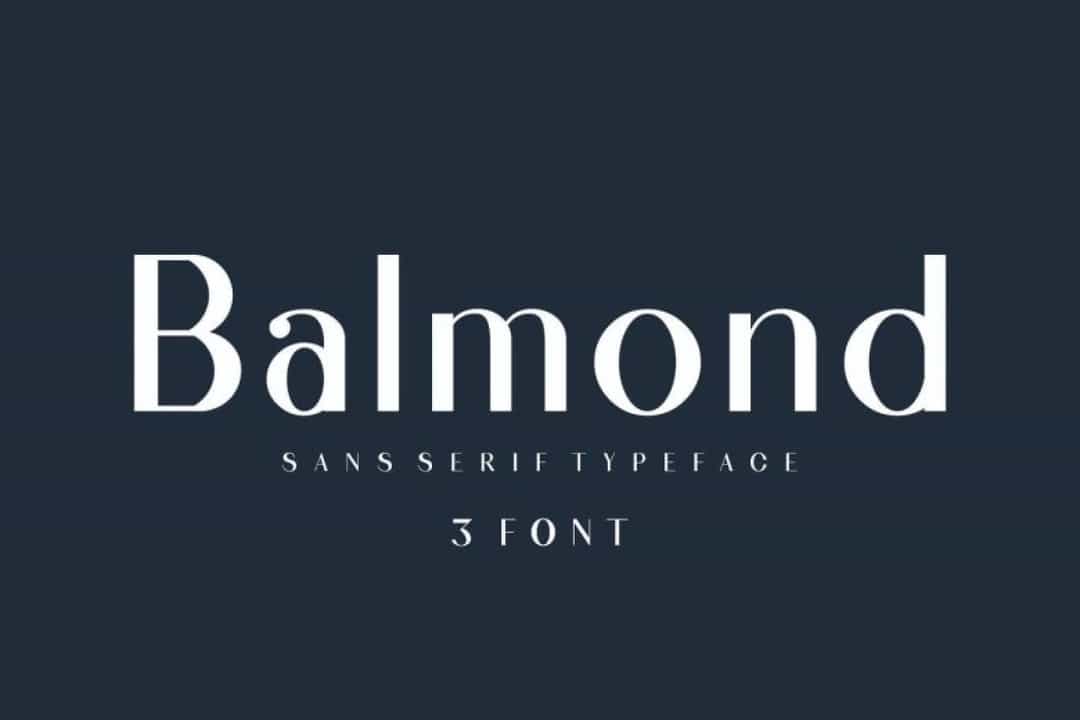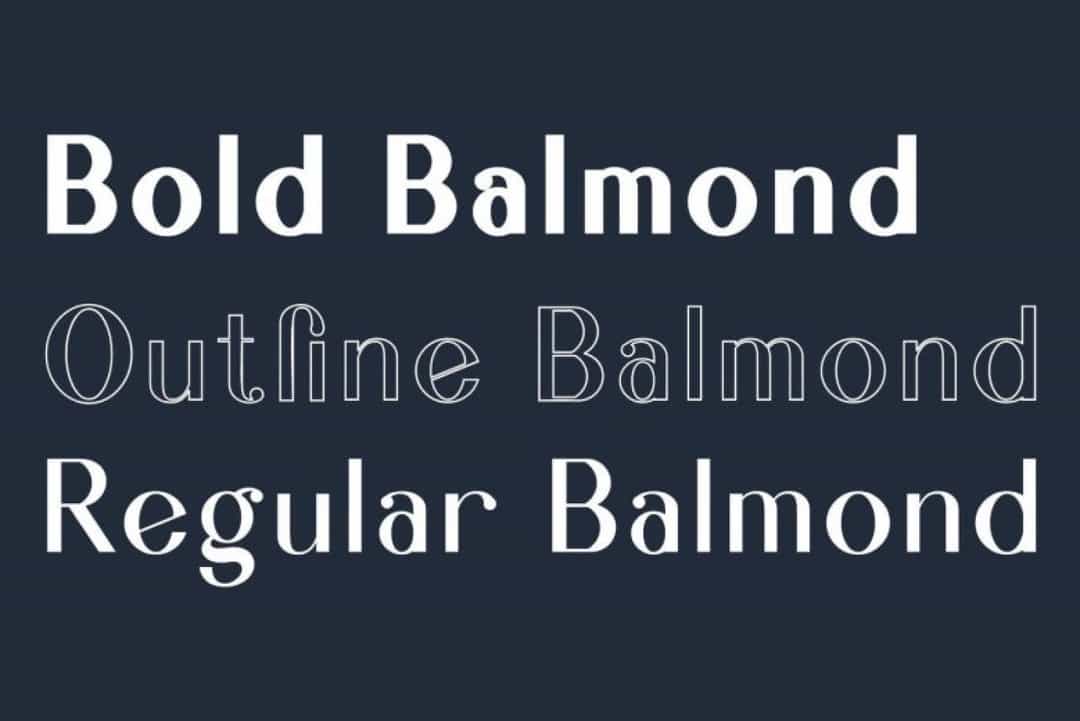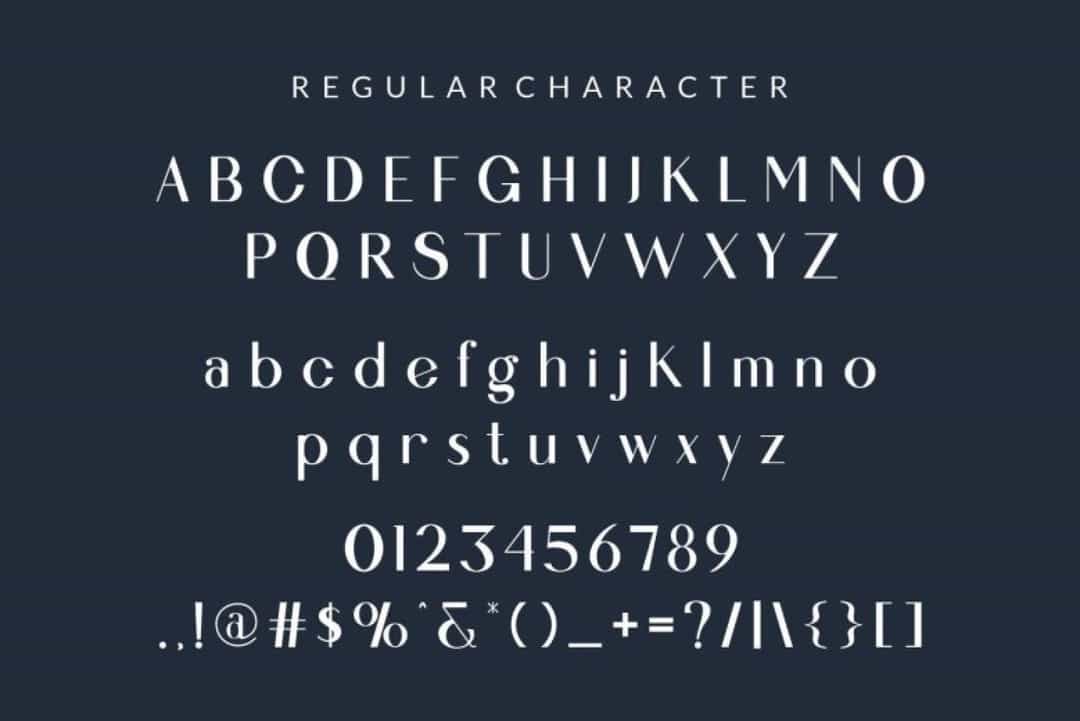
Balmond Sans Font is an extraordinary multi-faceted, bold and eye-catching three-serif sans serif font with soft curves that makes for great editorial and fashion designs. Include it into your projects for stunning results.